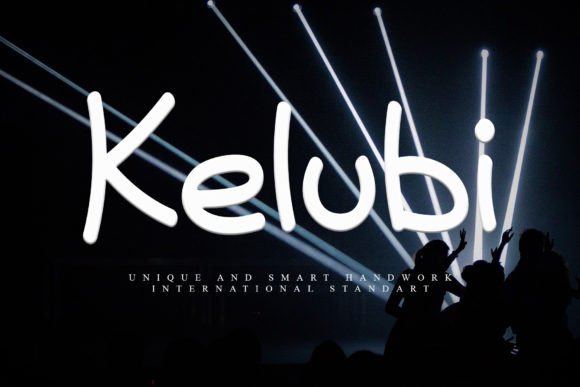
Journey into the realm of visual enchantment, where Kelubi Font reigns supreme. This captivating Sans Serif font is a masterpiece, meticulously crafted to elevate your creative expressions to unparalleled heights. Its striking presence and impeccable design make it the perfect choice for display boards, where every word carries weight and demands attention.
With Kelubi Font as your creative ally, transform mundane designs into captivating spectacles. Its distinctive letterforms and graceful curves dance across the screen, drawing the eye and igniting imaginations. Let your messages shine with a brilliance that commands attention, leaving an indelible mark on your audience.
Kelubi Font is more than just a font; it's an artistic gateway to a world of endless possibilities. Its versatility knows no bounds, seamlessly adapting to a myriad of design aesthetics. From sleek and minimalist to bold and playful, Kelubi Font effortlessly blends with your vision, enhancing it with a touch of sophistication and elegance.
Unleash your creativity and embark on a typographic adventure with Kelubi Font. Let your imagination soar as you craft logos that captivate, headlines that resonate, and posters that inspire. Its clean lines and crisp edges ensure effortless readability, while its inherent charm adds a touch of personality to every project.
Don't settle for ordinary fonts that fade into the background. Embrace the power of Kelubi Font and watch your designs blossom into works of art. It's the secret weapon you need to turn heads, leave lasting impressions, and create a visual legacy that speaks volumes.